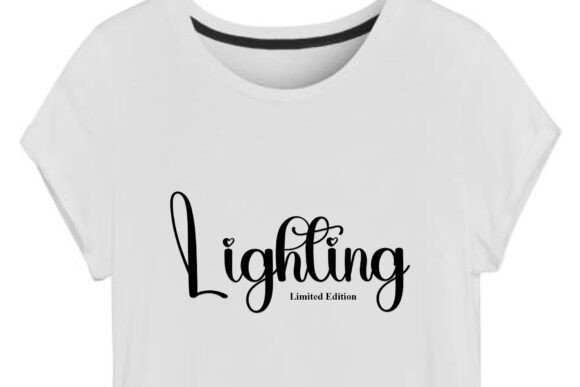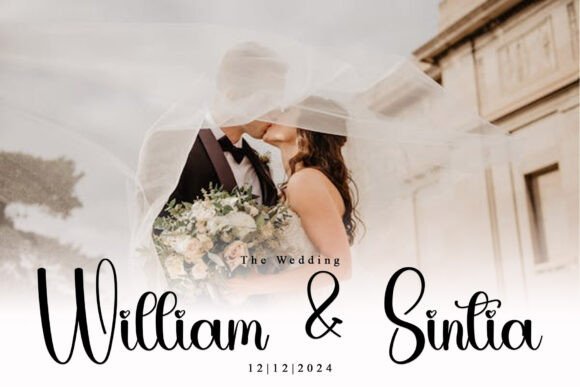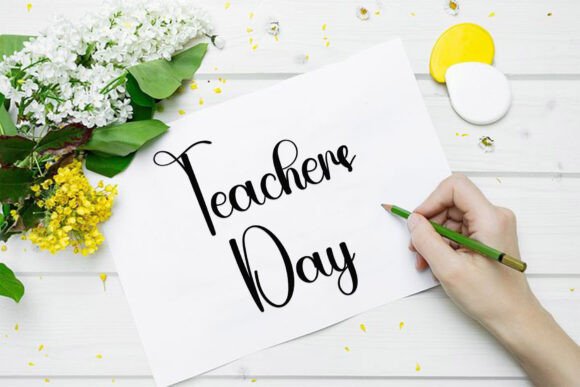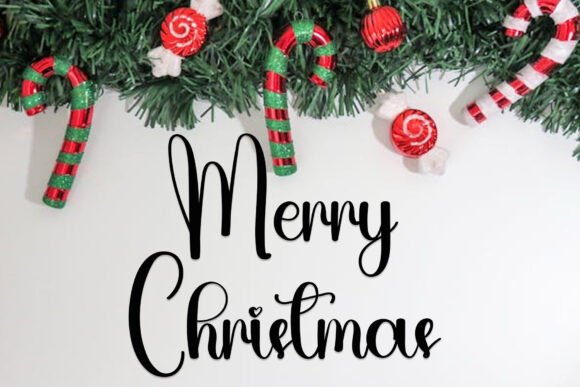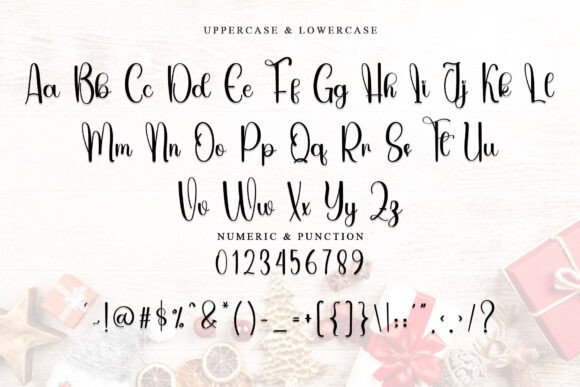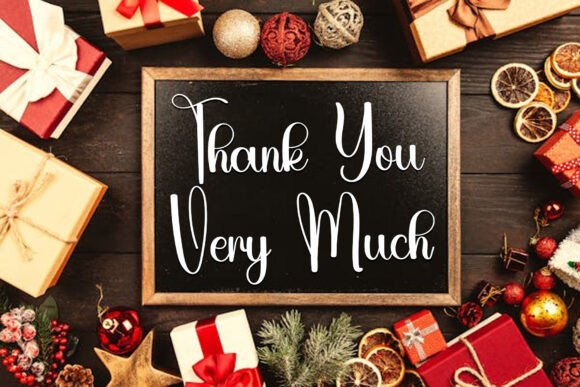
Biscuits Font: A Charming Handwritten Style for Your Design Projects
In the world of typography, few fonts manage to capture the essence of freshness and casual elegance as beautifully as Biscuits. This charming handwritten font is designed to bring a sense of warmth and personality to various design projects, making it an excellent choice for designers and crafters looking for a unique and engaging style.
The Characteristics of Biscuits Font
Biscuits font is distinguished by its fluid strokes and organic lines, which give it a laid-back vibe that’s perfect for a wide range of applications. The font’s casual elegance makes it suitable for projects that require a touch of sophistication without appearing too formal. Whether you’re working on branding, invitations, social media graphics, or any other design project, Biscuits font is sure to add a dash of personality and warmth.
Design Applications for Biscuits Font
The versatility of Biscuits font makes it an excellent choice for various design projects. Here are some of the ways you can use this charming font:
- Branding: Use Biscuits font to create a unique and memorable brand identity. Its casual elegance and warmth make it perfect for brands that want to appear friendly and approachable.
- Invitations: Add a touch of personality to your invitations with Biscuits font. Whether it’s a wedding invitation, birthday party, or baby shower, this font is sure to make your invitation stand out.
- Social Media Graphics: Use Biscuits font to create engaging social media graphics that reflect your brand’s personality. From Facebook posts to Instagram stories, this font is sure to add a touch of warmth and elegance to your graphics.
- Packaging Design: Biscuits font can also be used in packaging design to add a touch of personality to your product’s packaging.
Why Choose Biscuits Font?
There are several reasons why Biscuits font stands out from other handwritten fonts:
- Unique Style: Biscuits font has a unique style that’s both fresh and elegant. Its fluid strokes and organic lines make it a standout font that’s sure to grab attention.
- Versatility: This font is incredibly versatile and can be used in a wide range of design projects.
- Easy to Read: Despite its casual elegance, Biscuits font is easy to read, making it perfect for body text and headlines.
- Customizable: Biscuits font can be customized to fit your brand’s style. You can adjust the font size, color, and style to match your brand’s identity.
Tips for Using Biscuits Font
Here are some tips for using Biscuits font in your design projects:
- Pair it with Other Fonts: Biscuits font pairs well with other fonts, especially sans-serif fonts. Experiment with different font combinations to find the perfect pairing.
- Use it for Headlines and Body Text: Biscuits font is suitable for both headlines and body text. Use it to create a consistent look throughout your design project.
- Experiment with Colors: Biscuits font looks great in a variety of colors. Experiment with different colors to find the one that best matches your brand’s style.
Biscuits font is a charming handwritten font that’s perfect for designers and crafters looking for a unique and engaging style. Its fluid strokes and organic lines evoke a laid-back vibe, making it suitable for various design projects. Whether you’re working on branding, invitations, social media graphics, or any other design project, Biscuits font is sure to add a touch of warmth and personality. With its versatility, ease of use, and customizability, Biscuits font is an excellent choice for any design project.